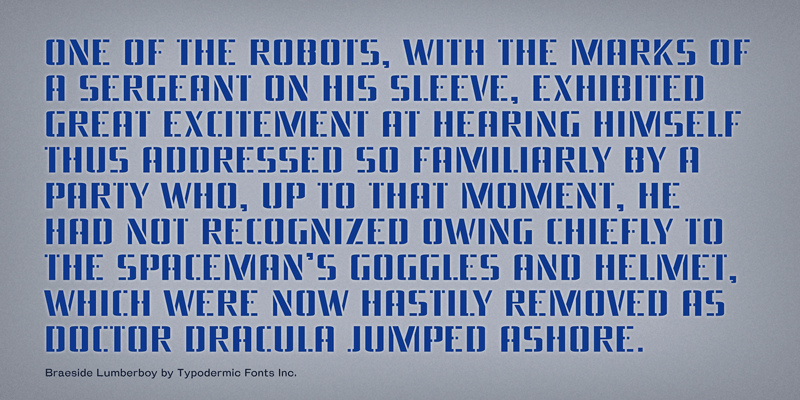
Preview and download Braeside Font. Created by Typodermic Fonts in Fancy Stencil, Army styles with 100% Free license.
Braeside is a square, industrial stencil font available in regular and outline styles. These fonts include a license that allows free commercial use: sometimes referred to as a desktop license. This allows you to install the fonts on a computer and use them to create posters, web graphics, game graphics, t-shirts, videos, signs, logos and more. Read the license agreement for details. If you'd like to embed these fonts in an app, ebook, on the web or anything that's not covered by the desktop license agreement, visit the link below. You'll find distributors who offer different types of licenses or you can contact me for help. http://typodermicfonts.com/braeside/ |